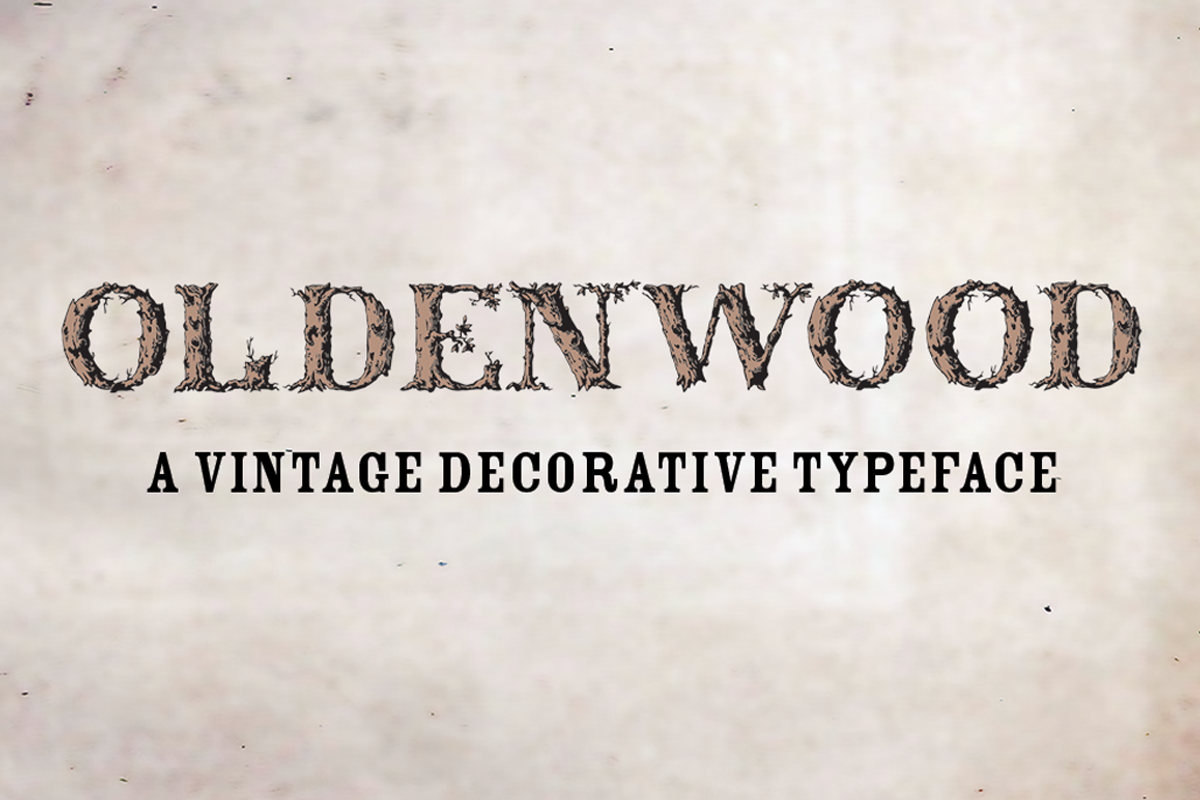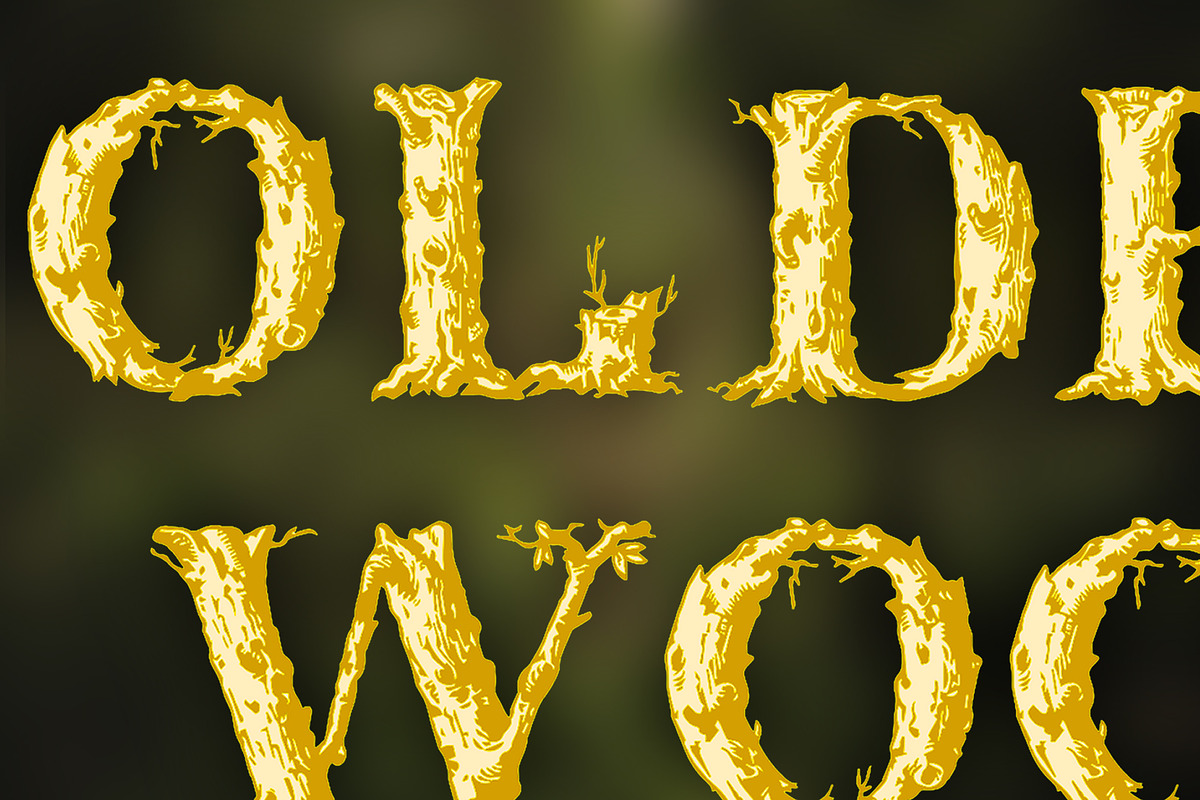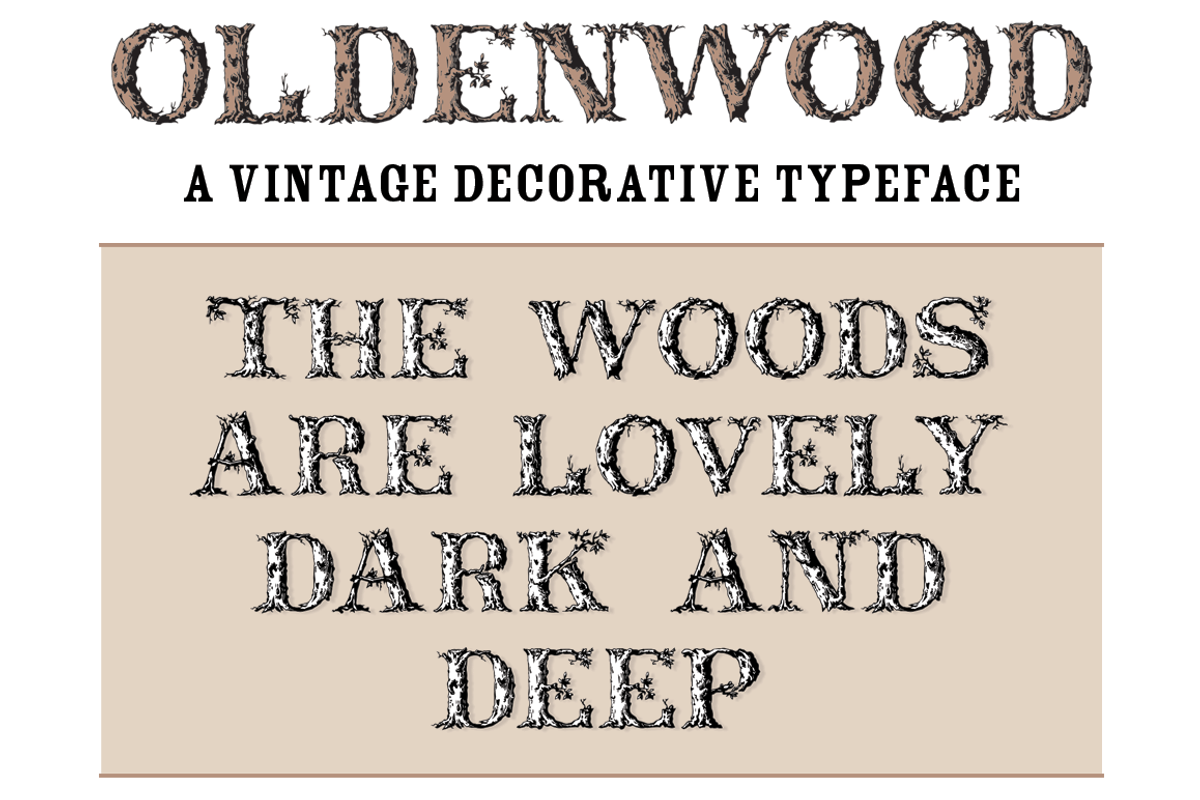
Font: Oldenwood - Caps Only
Font: Oldenwood - Caps Only by Vertigo Creative Products is a font selected for branding, posters, packaging, typography.
- No lowercase characters, punctuation, symbols or color are included.
Font: Oldenwood - Caps Only by Vertigo Creative Products fits naturally into Branding, posters, packaging, typography.